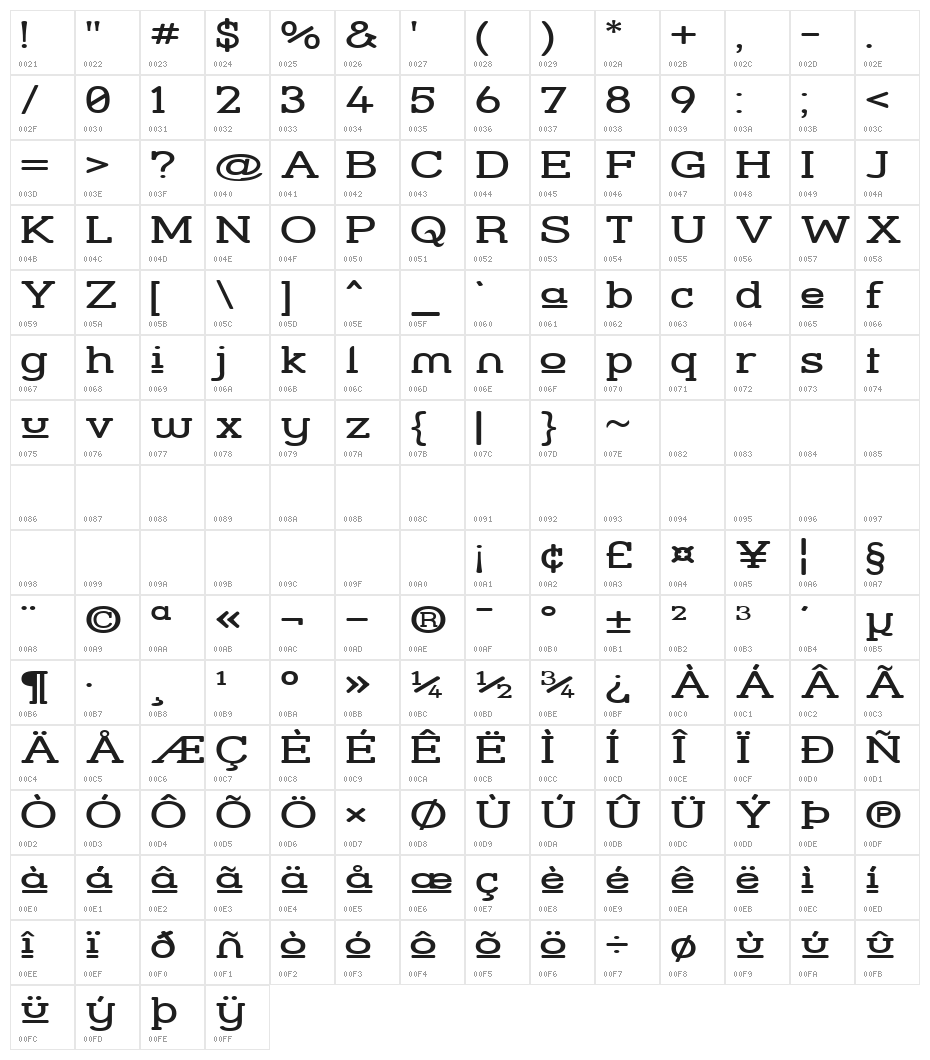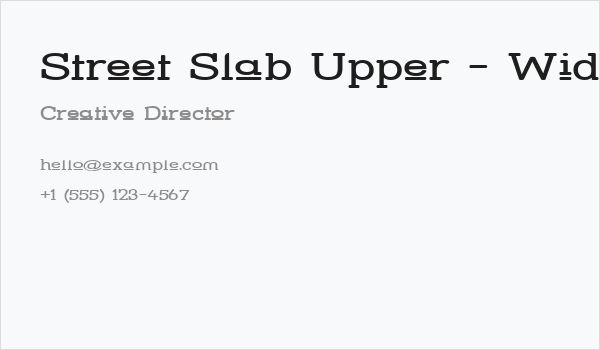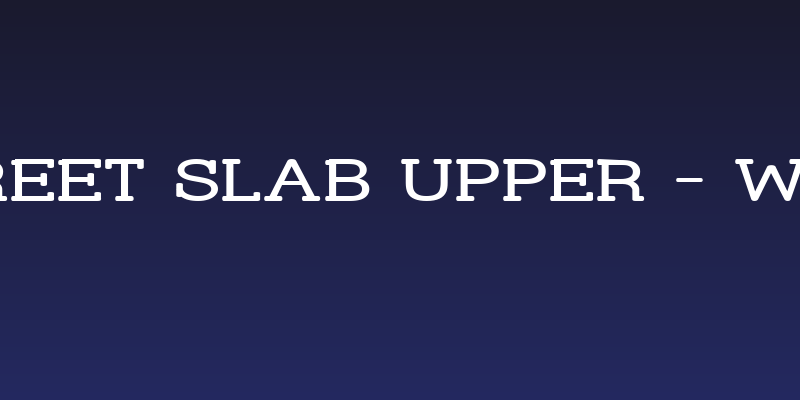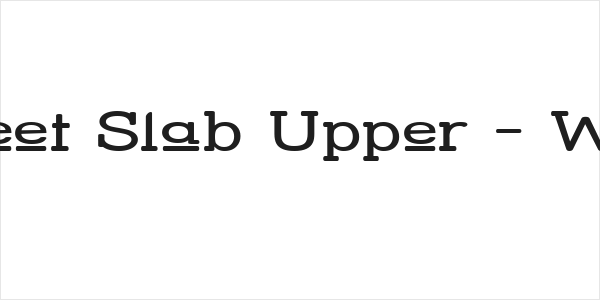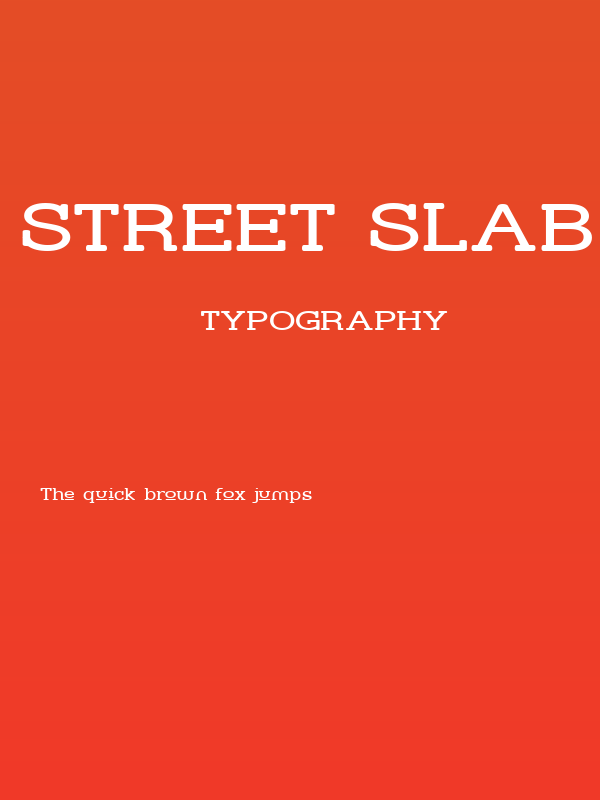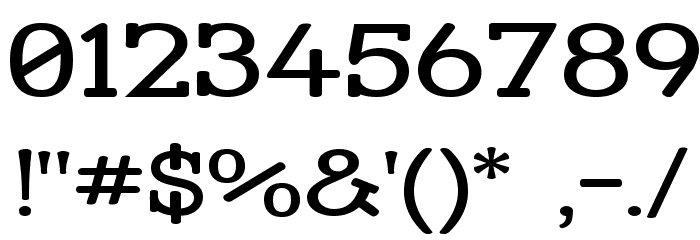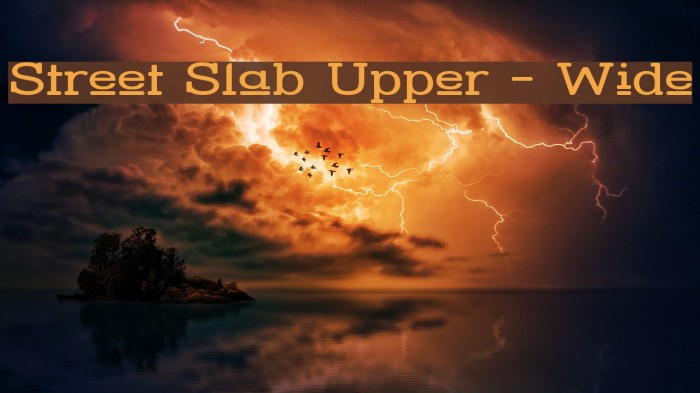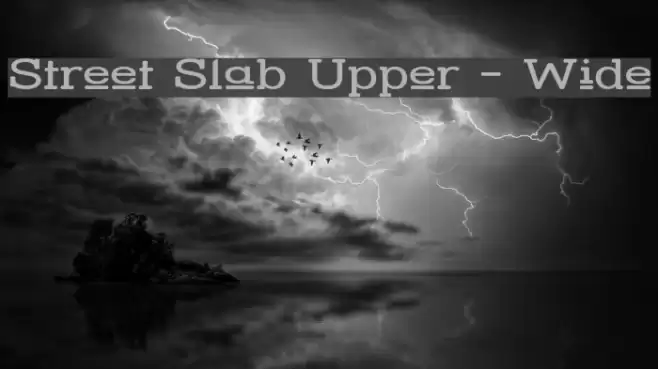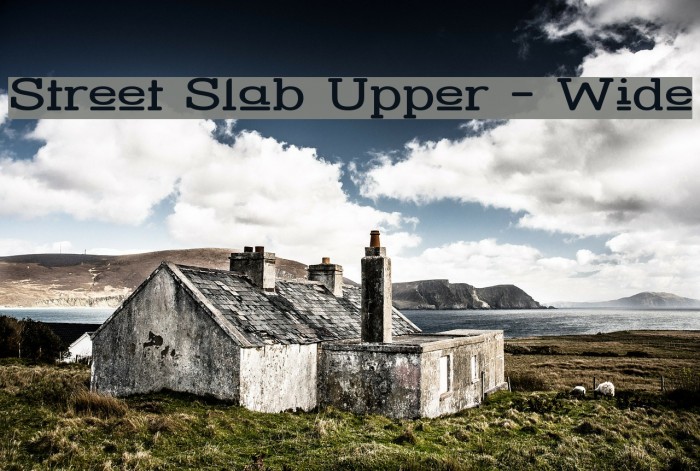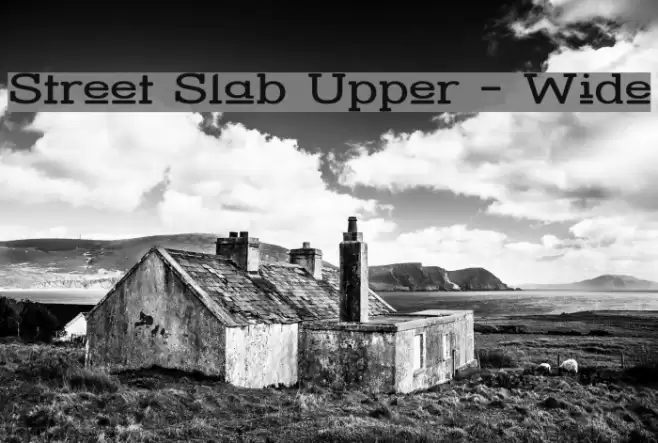
Street Slab Upper - Wide Font
Street Slab Upper - Wide Description
This font features a bold and robust slab serif style, characterized by its thick, block-like serifs and uniform stroke widths. The uppercase letters are strong and commanding, while the lowercase letters maintain a consistent and balanced appearance. The numerals are clear and easily distinguishable, making them suitable for various applications. Special characters are designed to complement the overall aesthetic, adding versatility to the font. The design is modern yet retains a classic touch, making it suitable for both contemporary and traditional projects.
| Proposed Projects | Ideal for headlines, posters, branding, and signage where a strong, impactful presence is needed. |